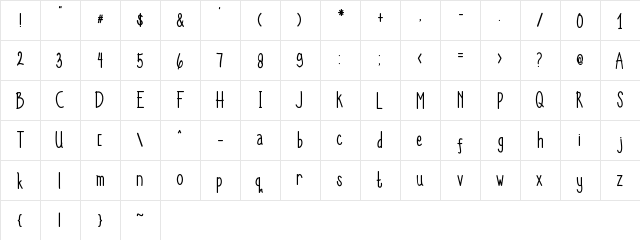
Ammah Ucha Regular Font Preview
Ammah Ucha Regular
Ammah Ucha Regular Font Details
Design Context for Ammah Ucha Typeface
Ammah Ucha offers clean, dependable letterforms without strong stylistic allegiance, making it a practical choice for designers who need flexibility.